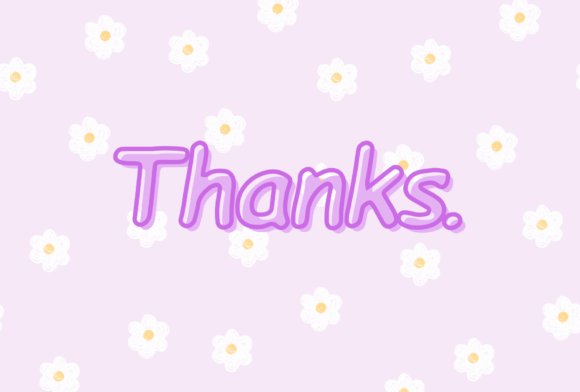
Introduction to Lucky Number Font Font
Fonts play a crucial role in design, and the Lucky Number Font font is a typeface that brings both character and versatility to any project. Whether you’re working on a branding project, a website, or a print design, the Lucky Number Font font offers a unique style that can elevate your work.
Lucky Number is a neat handwritten font, perfect for digital note-taking.
This versatile font works great for various projects, including Procreate, blog posts, logos, branding, digital planners, invitations, greeting cards, photo albums, decorations, and more It also supports multiple languages and adds a cute, personal touch to any design, especially on iPads and GoodNotes.
Key Features of Lucky Number Font Font
Why Choose Lucky Number Font Font?
The Lucky Number Font font is more than just a typeface – it’s a design tool that helps you communicate your message with style and clarity. Its unique character set and versatile design make it suitable for a wide range of applications, from elegant invitations to bold headlines.
With its carefully crafted letterforms and balanced proportions, the Lucky Number Font font ensures readability and visual appeal across all mediums.
What makes Lucky Number Font font special?
The Lucky Number Font font stands out with its unique design, exceptional readability, and versatility across various design applications.